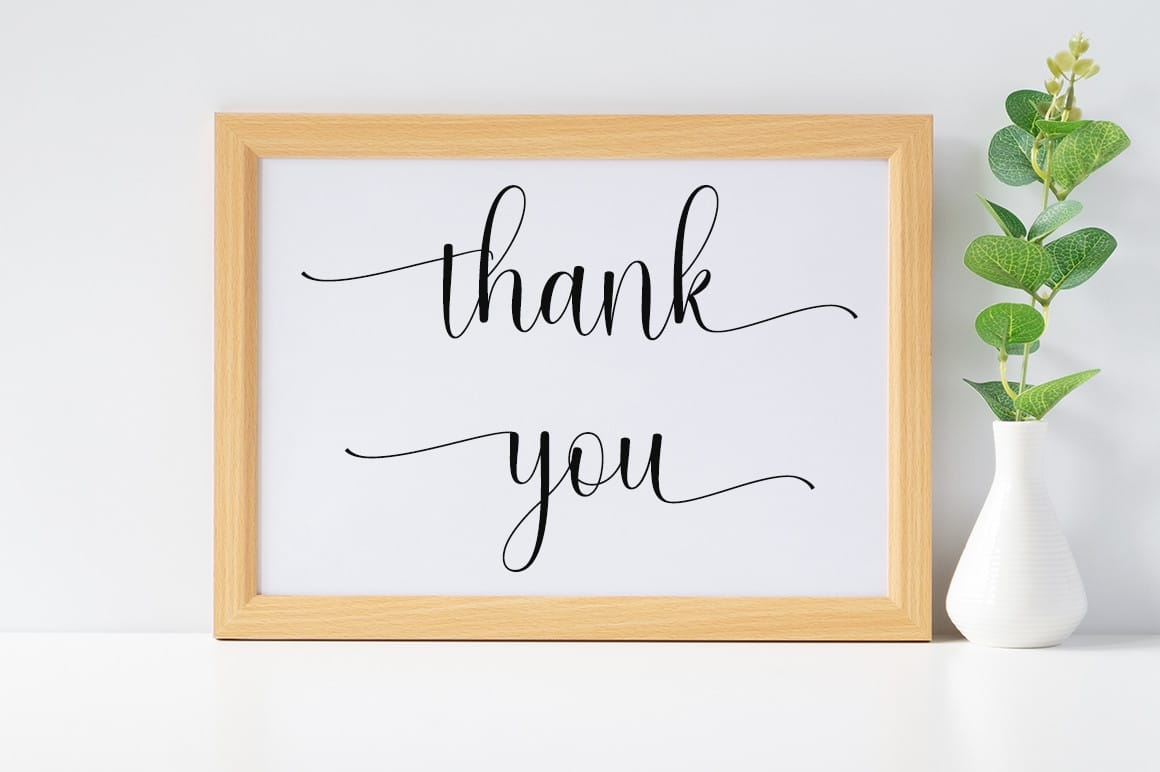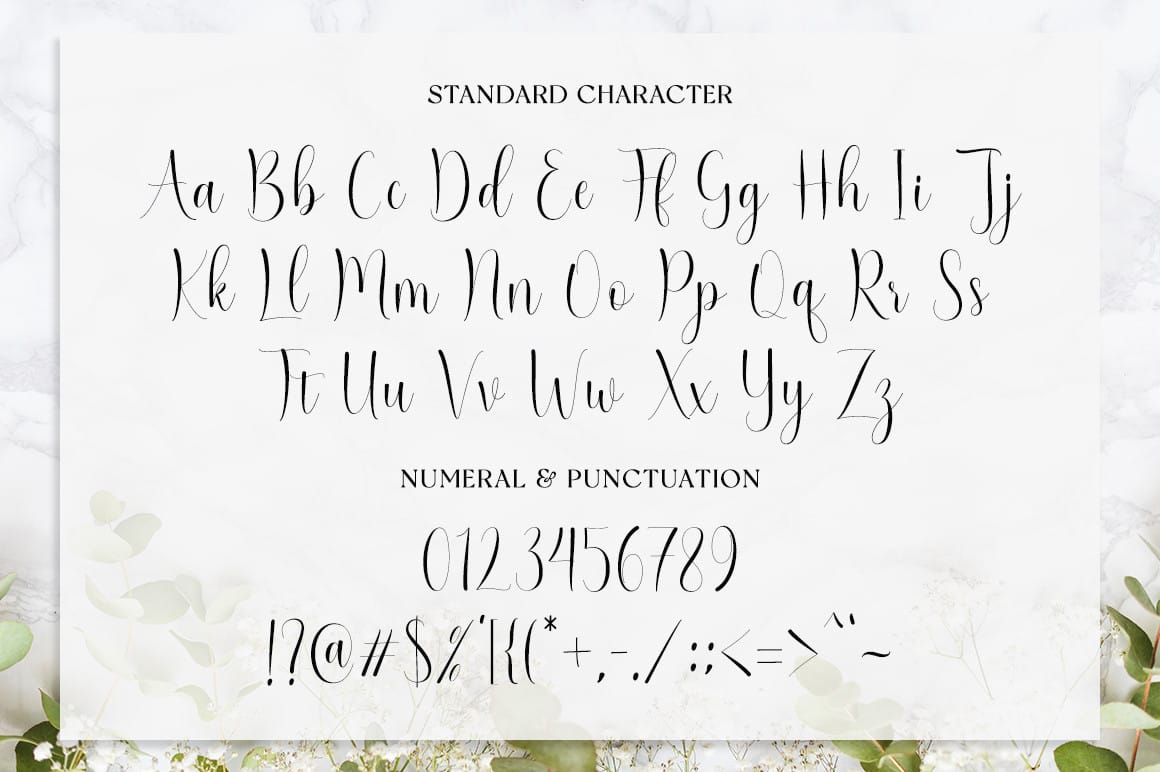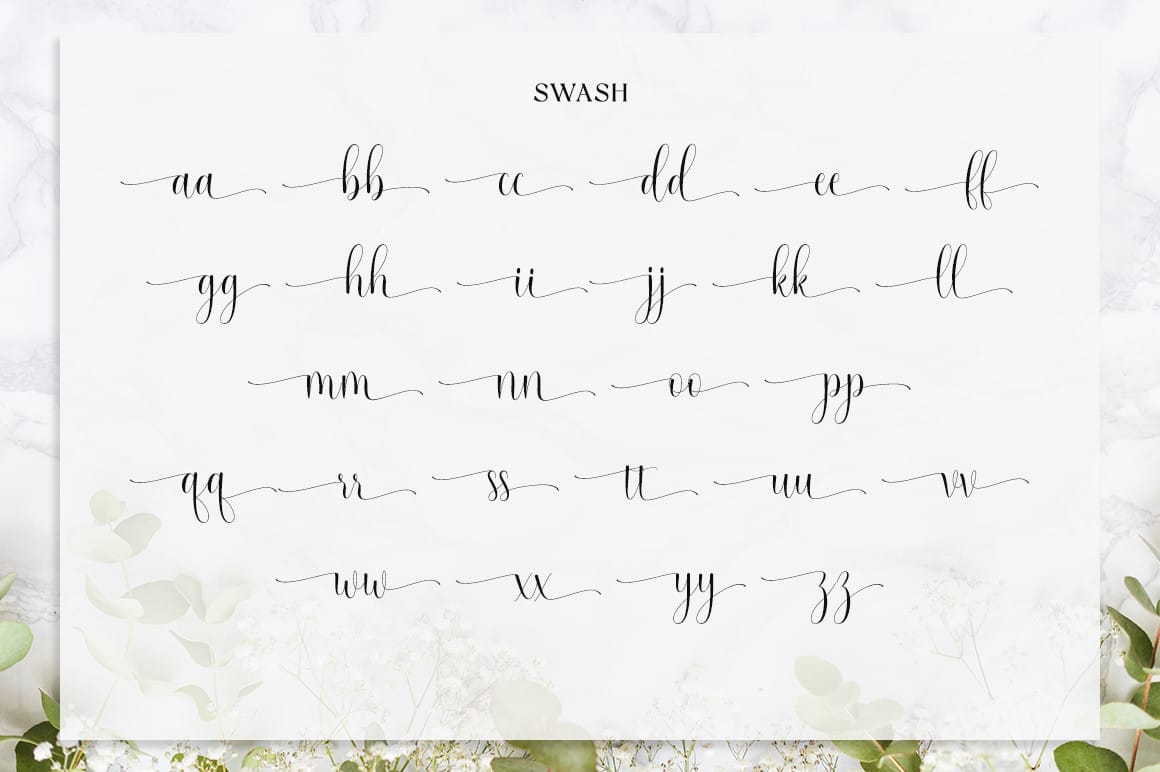
Olivia Script is a refined script font with a clean, elegant, and modern feel. Its smooth letterforms and balanced flow make it a good fit for projects that need a handwritten look without feeling messy or overly decorative.
This font works well for logos, branding, invitations, stationery, wedding designs, social media graphics, and other creative layouts where a personal but polished style is needed. It pairs easily with minimalist layouts and simple serif or sans-serif fonts.
Olivia Script is PUA encoded, which means all glyphs, alternates, and swashes can be accessed easily without special software. This makes customizing text fast and straightforward, even for beginners.